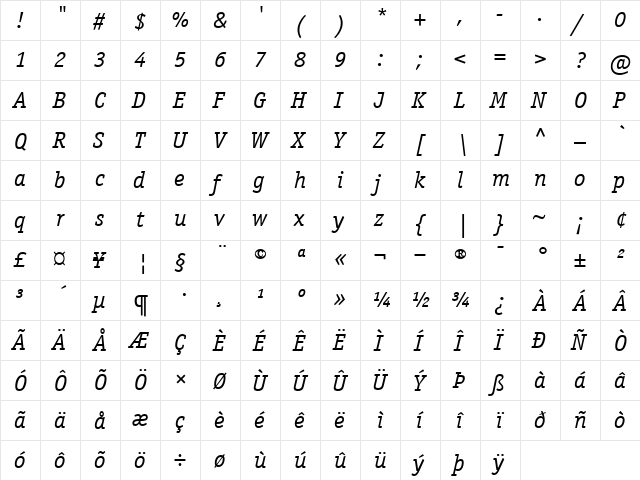
ITCOfficinaSerif-Book BookItalic Font Preview
ITCOfficinaSerif-Book BookItalic
Design Context for ITCOfficinaSerif-Book Typeface
ITCOfficinaSerif-Book brings classic typographic sensibility to the table — its serifs and measured letterforms reflect centuries of print heritage. Its italic angle brings a sense of urgency and motion to the letterforms.